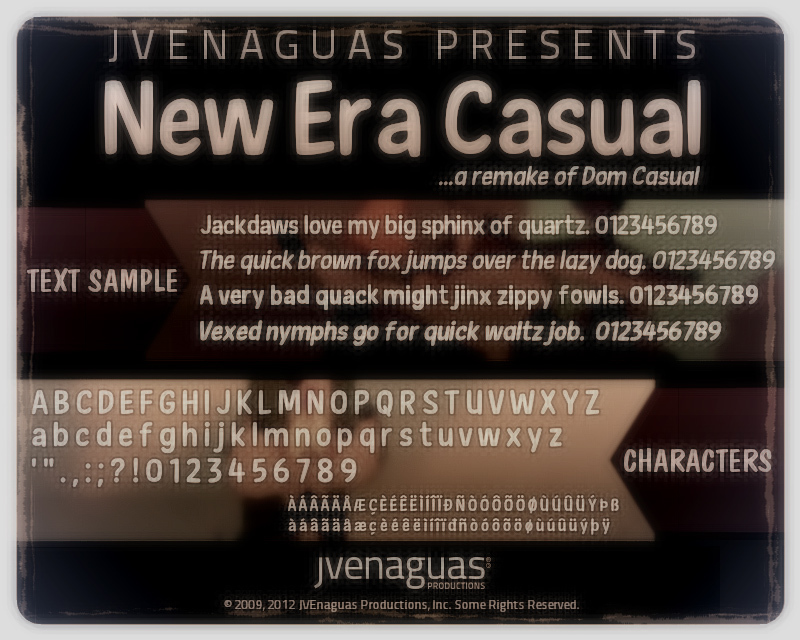
New Era Casual Italic by JVEnaguas Productions, Inc. is a free decorative display font with noticeably tall, softly leaning letters and an easygoing hand-drawn finish. The strokes swell and narrow unexpectedly across the letters, giving the alphabet a lively silhouette rather than a uniform typographic texture. Softly rounded joins and slightly uneven edges keep its substantial forms loose and approachable.
Its broad, ink-like shapes can echo simple character illustration and loose line art in children's publishing, comedy posters, and casual food packaging. The mix of weight and informality speaks especially well to young families and independent businesses seeking a cheerful, everyday voice.
This font was designed by Jayvee D. Enaguas.